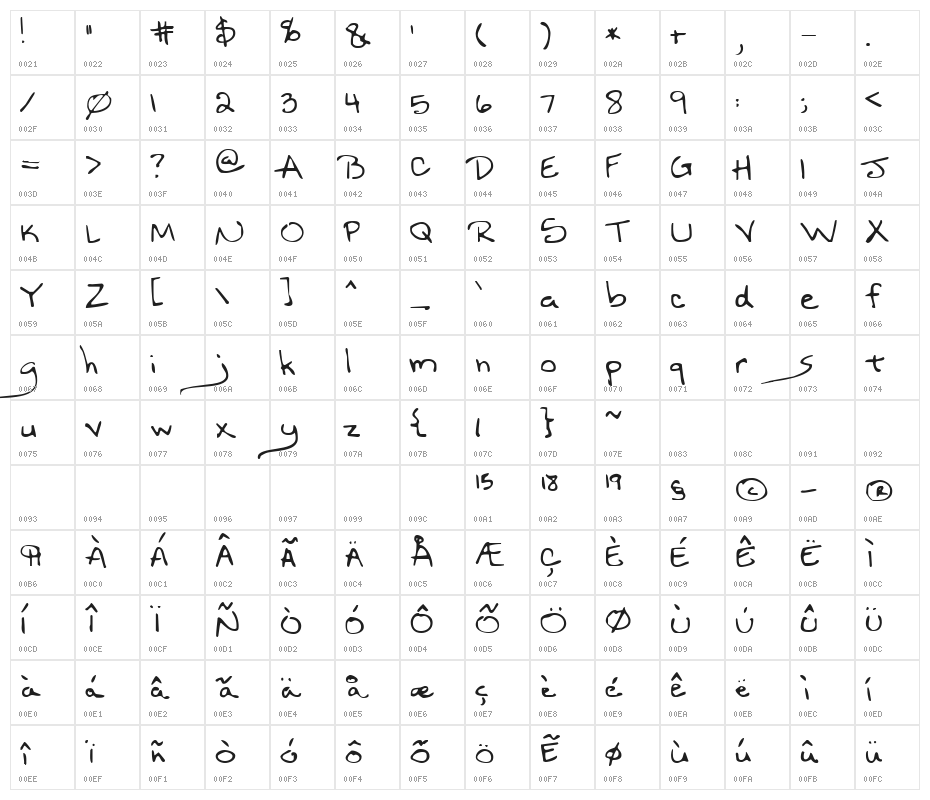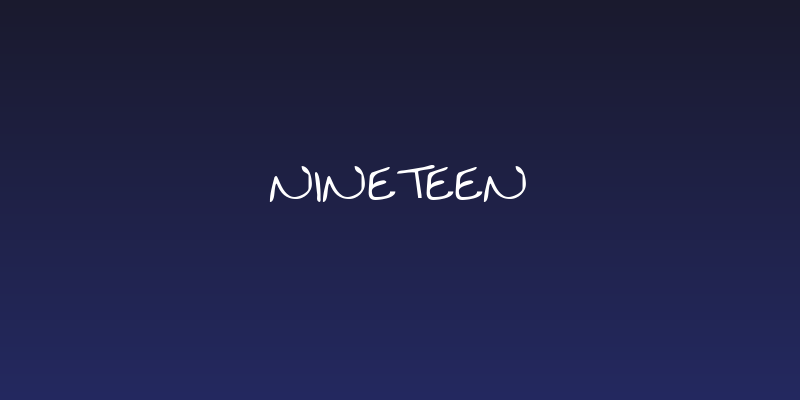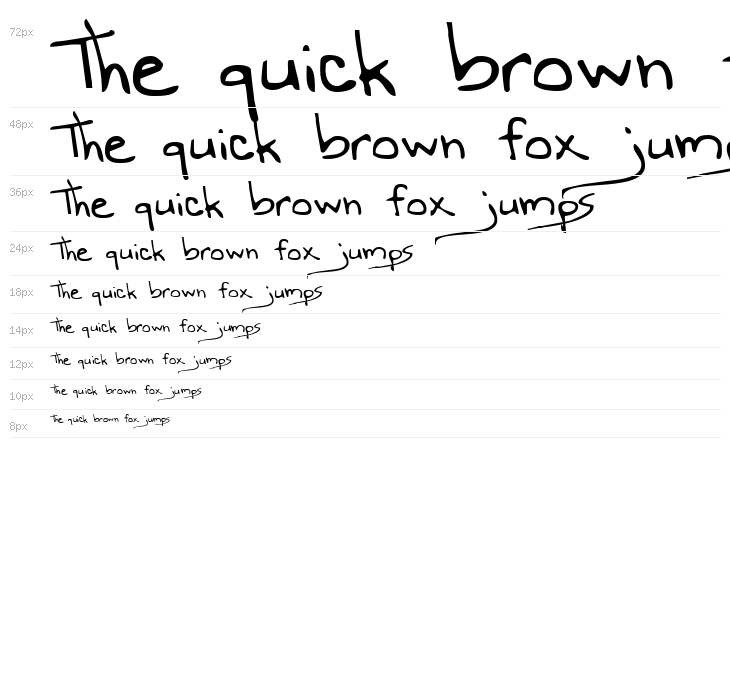
Nineteen Font
| Stile generale | Casual, Playful |
| Caso d'uso | Headlines, Logos, Personal projects |
| Progetti proposti | Ideal for greeting cards, invitations, personal branding, and creative projects that require a friendly and approachable look. |